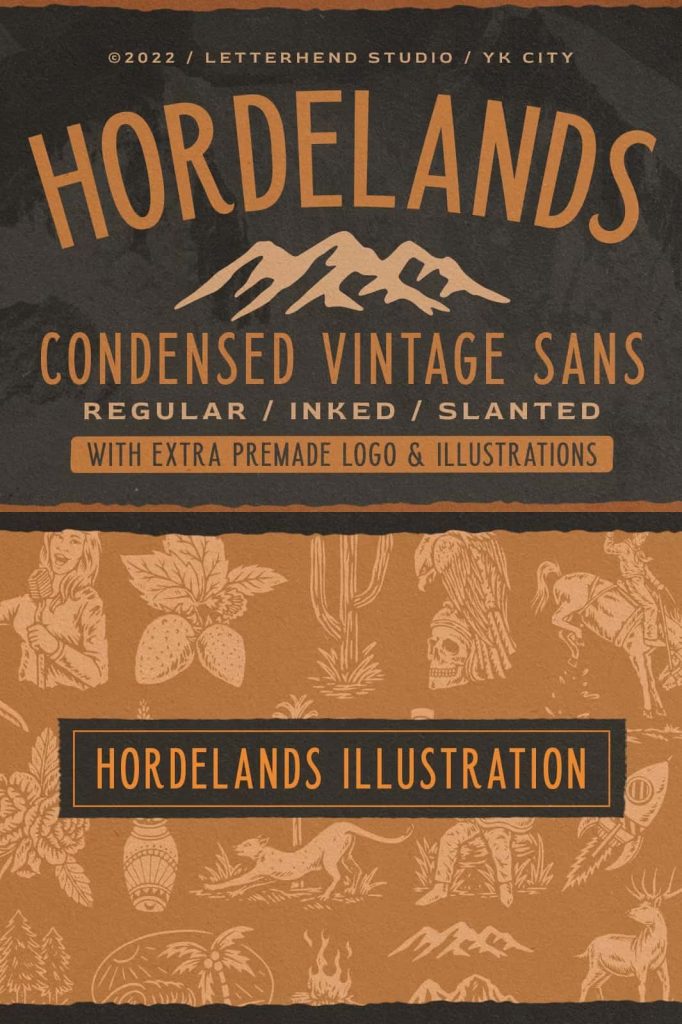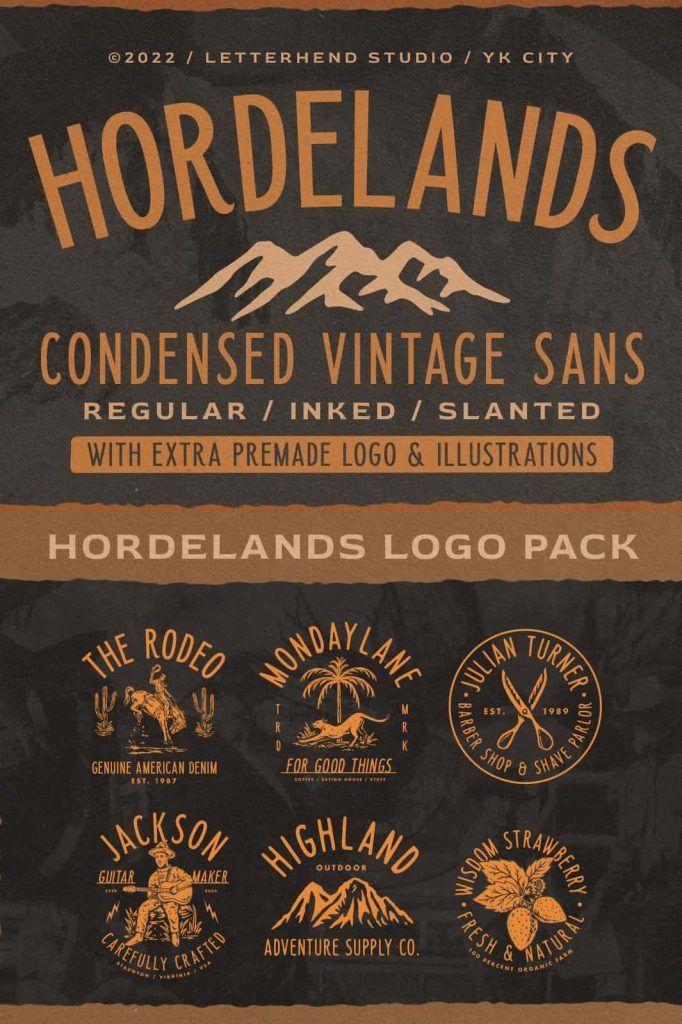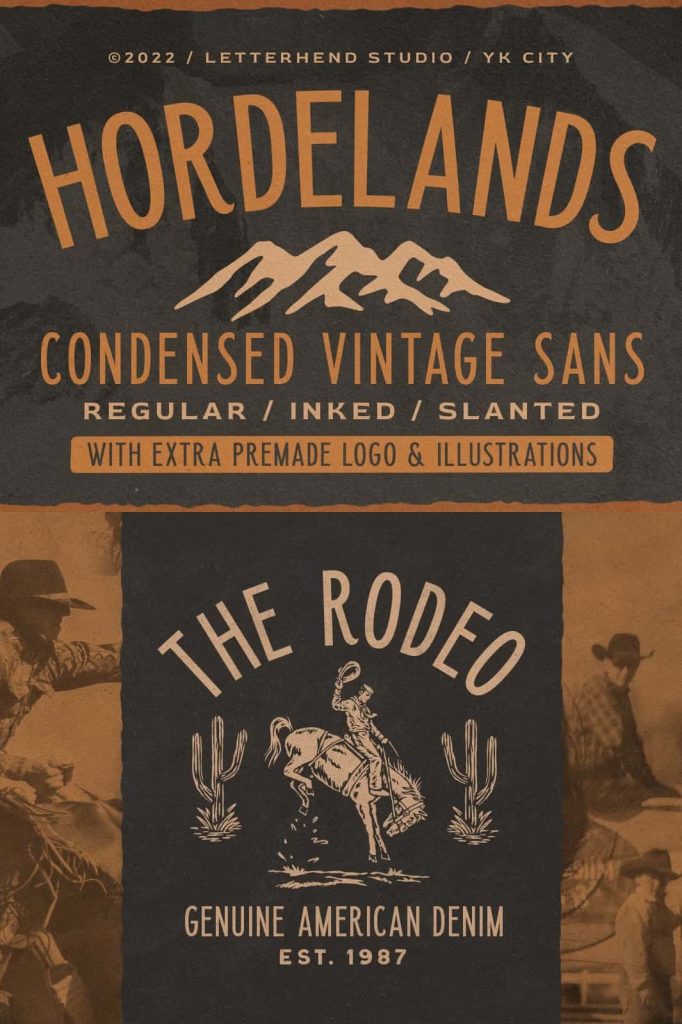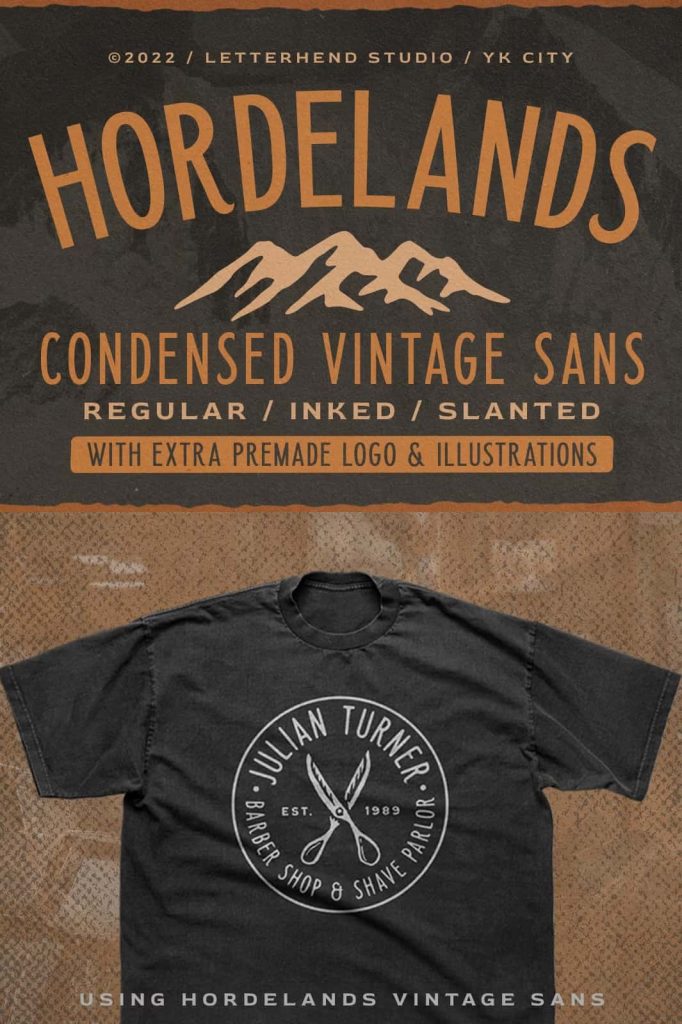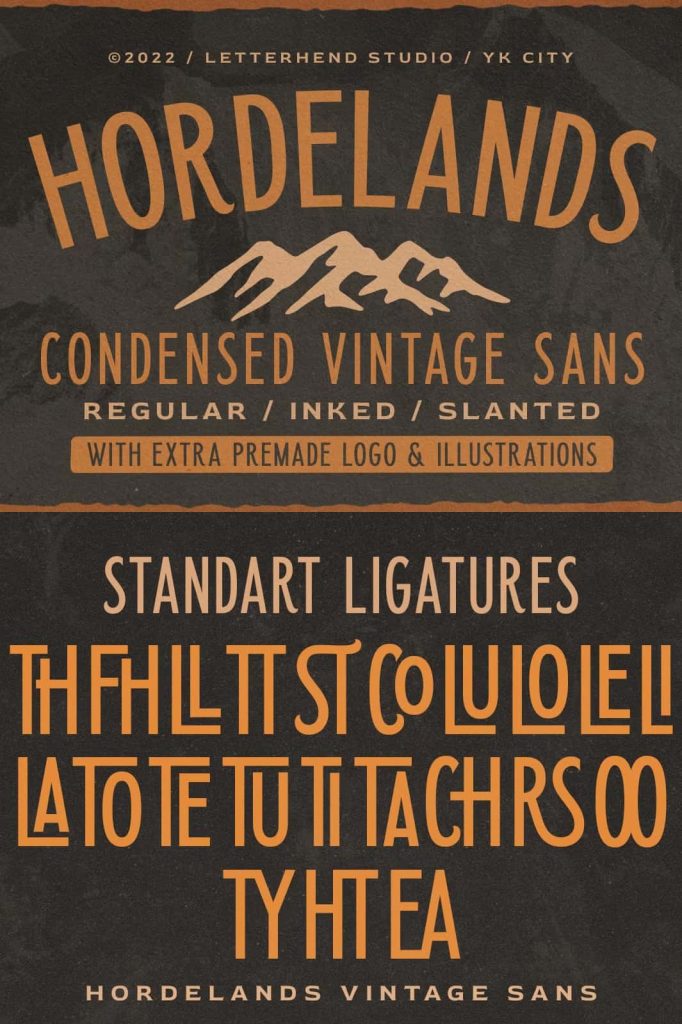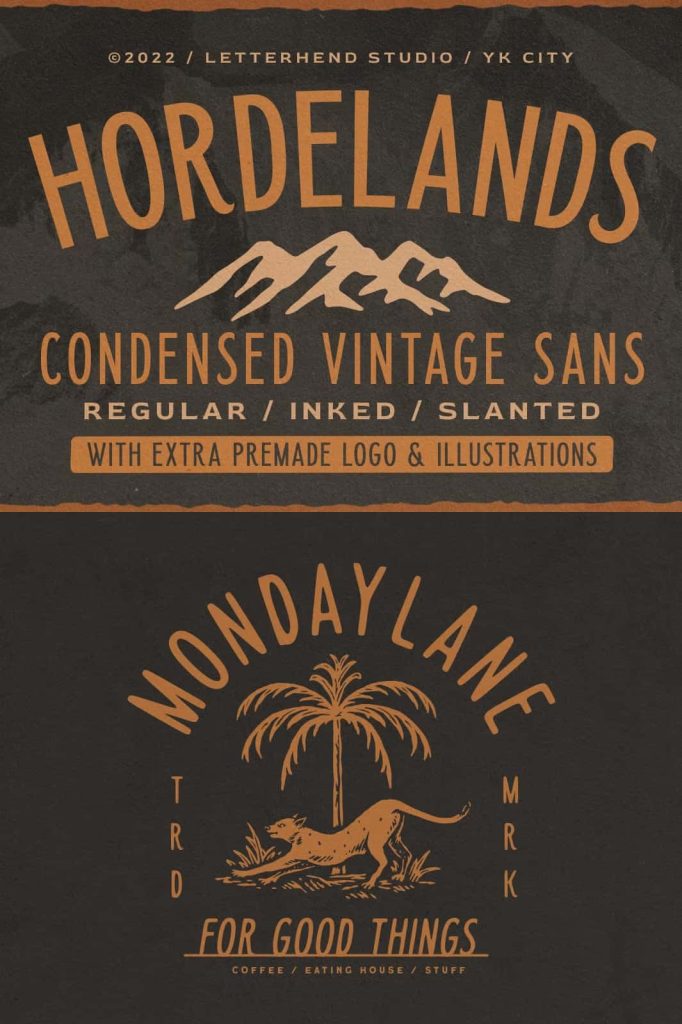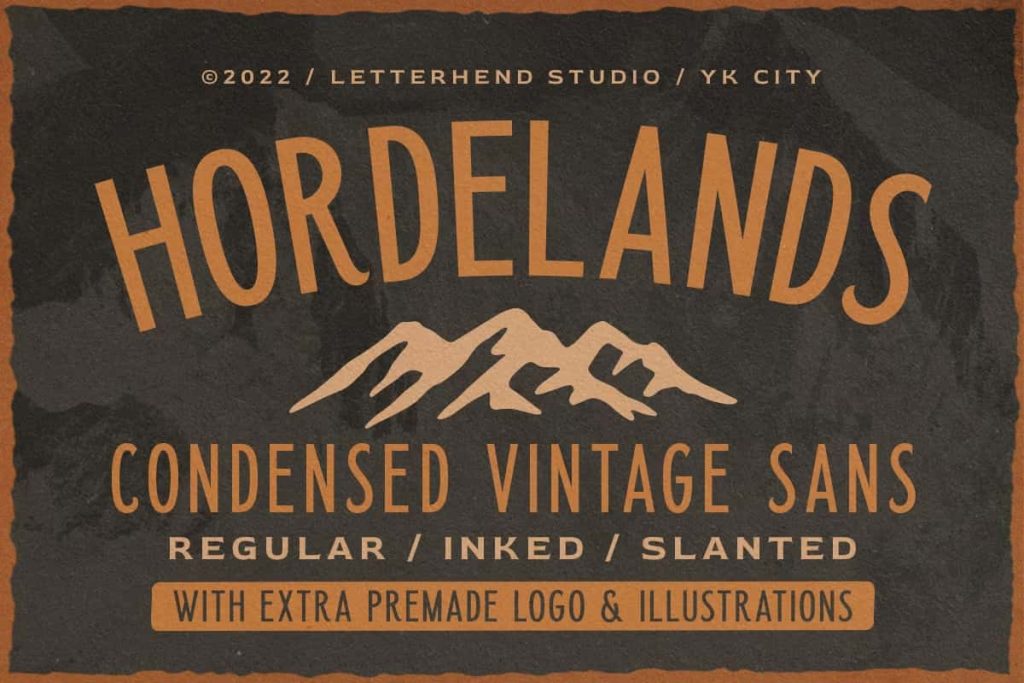
Horderlands – Condensed Vintage SansleastedJune 19, 2025Fonts Hordeland is a display condensed typeface with a touch of vintage look and feel. Download